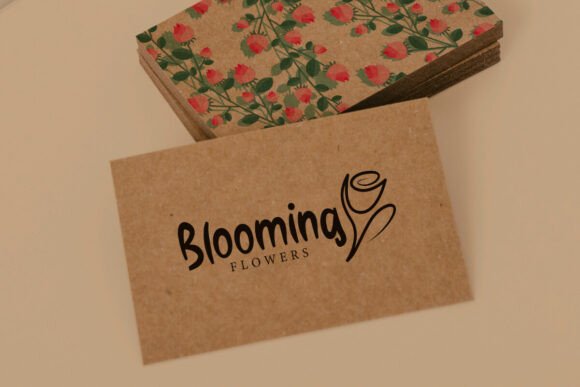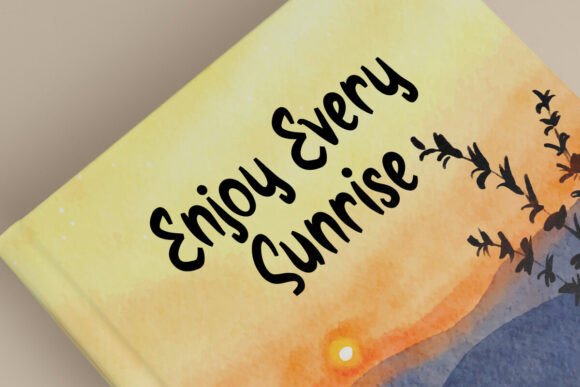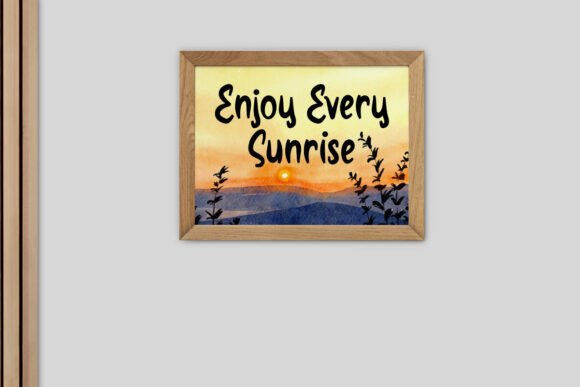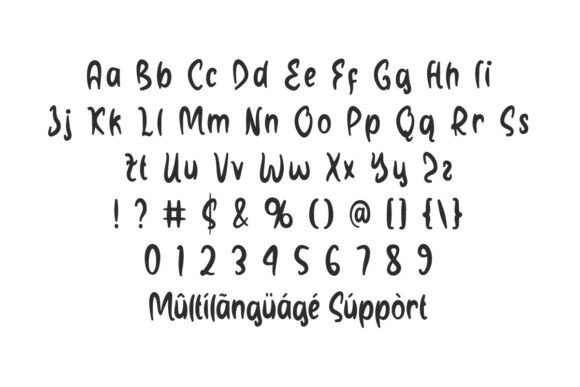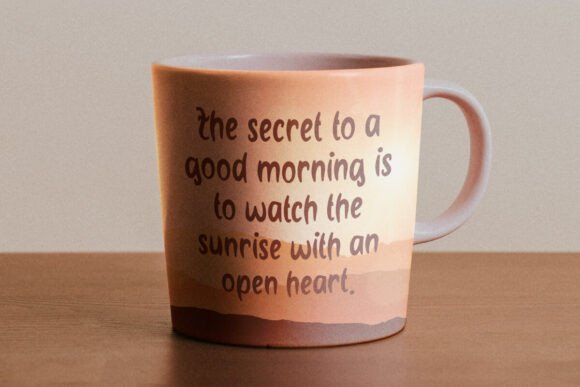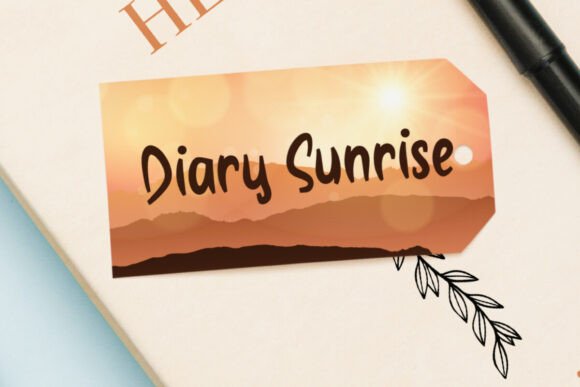
Introduction to Diary Sunrise Font
Diary Sunrise is a charming yet creepy handwritten font with a fun theme.
It will be useful for your designs, such as apps, billboard, blogs, brand identity, brochure, cover, flyer, greeting card, headline, label, logo, mockup design, poster, quote, screen print, stationery, sticker, title, visiting card, website, and much more .
Key Features of Diary Sunrise Font